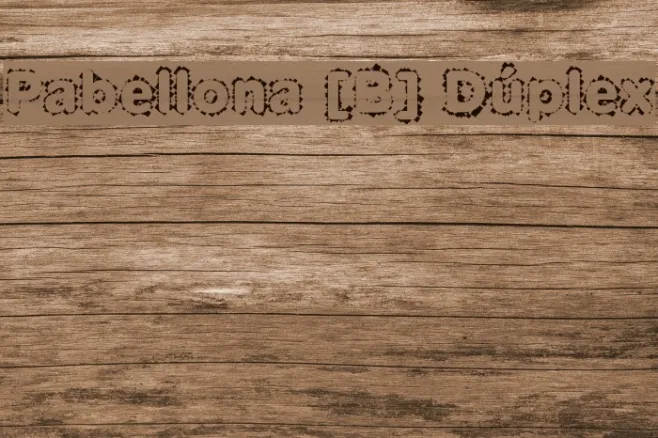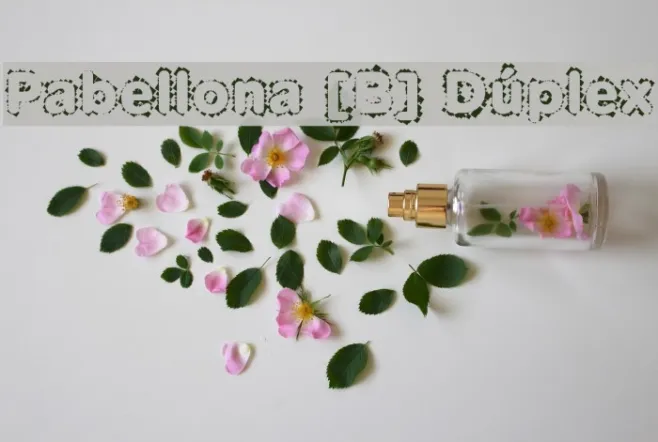
Pabellona [B] Dúplex Font
This font features a bold, geometric design with a unique dotted pattern that creates a dynamic and eye-catching effect. The characters are well-defined with a consistent stroke width, giving it a modern and structured appearance. The uppercase and lowercase letters maintain a uniform style, while the numbers and special characters are equally distinctive. The dotted outline adds a playful and decorative touch, making it stand out in any design context. This font is ideal for projects that require a bold statement and a touch of creativity.
| Overall Style | Modern, Decorative |
| Proposed Projects | Ideal for posters, branding, headlines, and any design needing a bold, creative touch. |